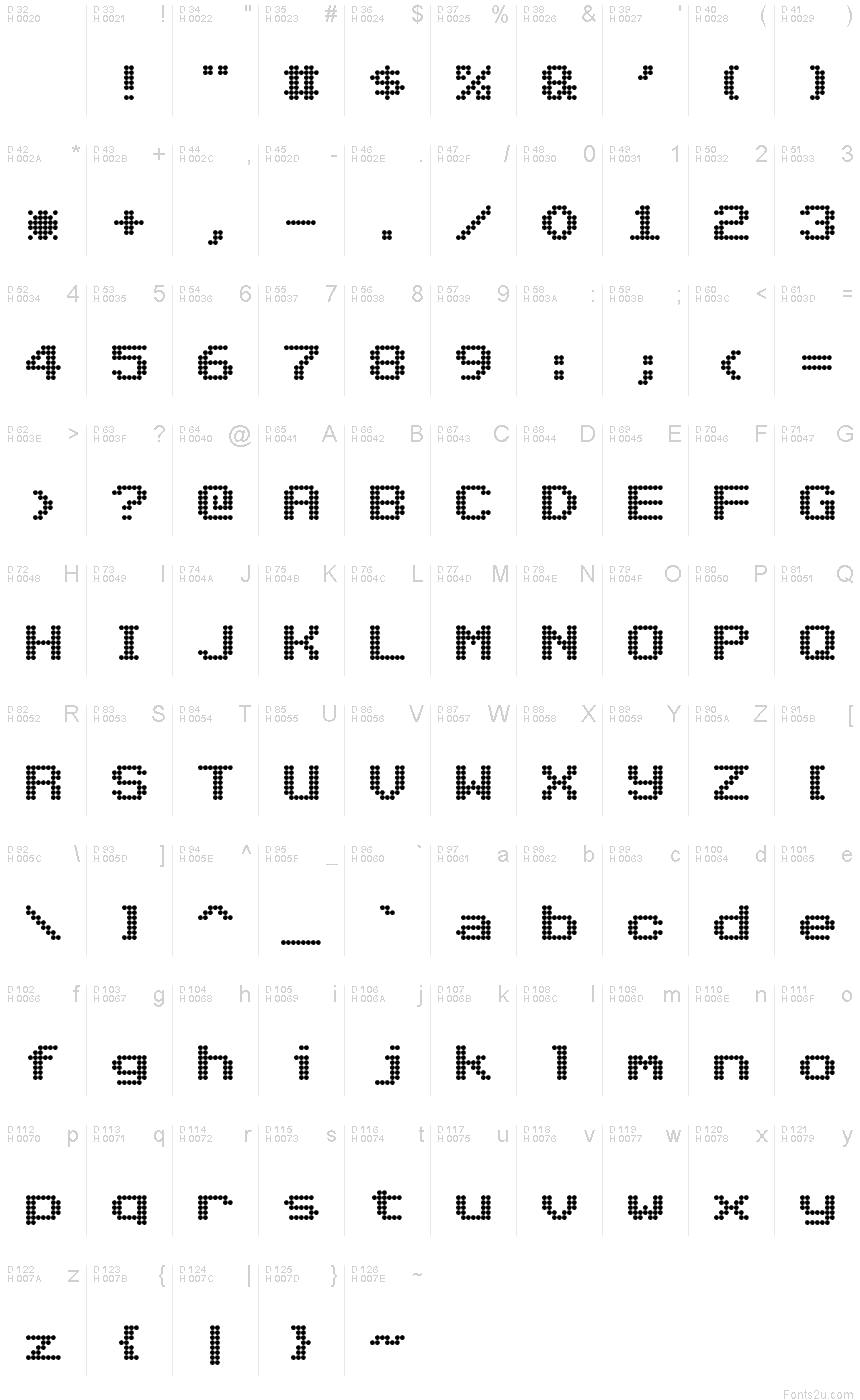
Nioc Tresni, designed by TracerTong, is a free dot-matrix pixel font with broad proportions and the rounded lights of an electronic marquee. Even the densest letters retain a porous, open silhouette. Wide curves and compact joints give the lettering a cheerful display-board quality, closer to fairground signage than a strict terminal face.
An event poster is its most convincing setting, especially for concerts, festivals, or arcade nights with illuminated graphics. It also suits game interfaces and music merchandise, where the circular points can echo indicator lamps, stage bulbs, or LED patterns for audiences drawn to playful retro electronics.